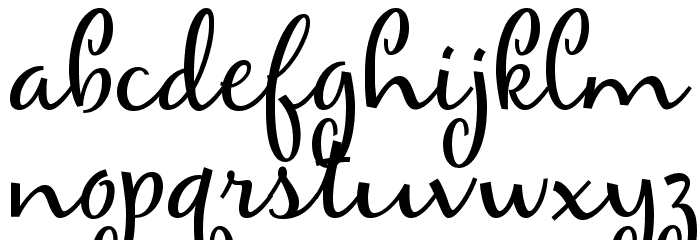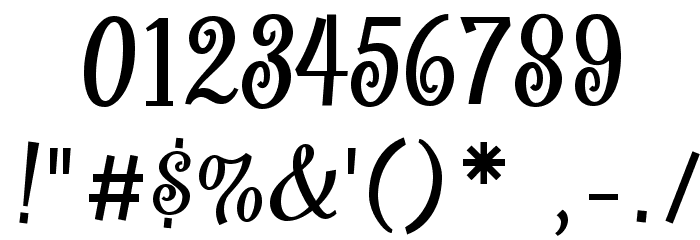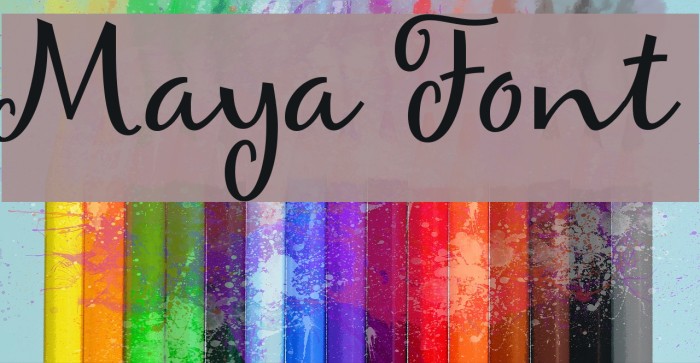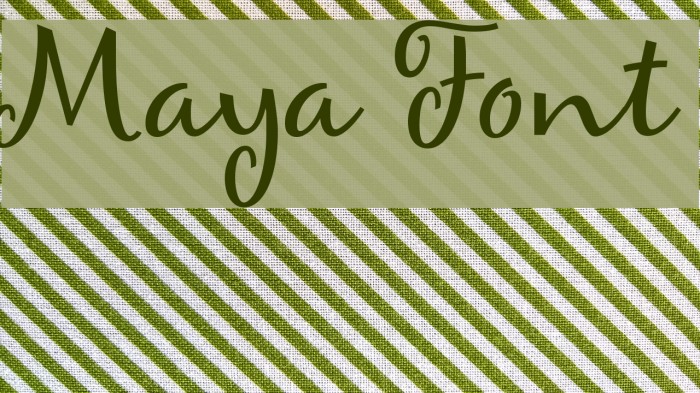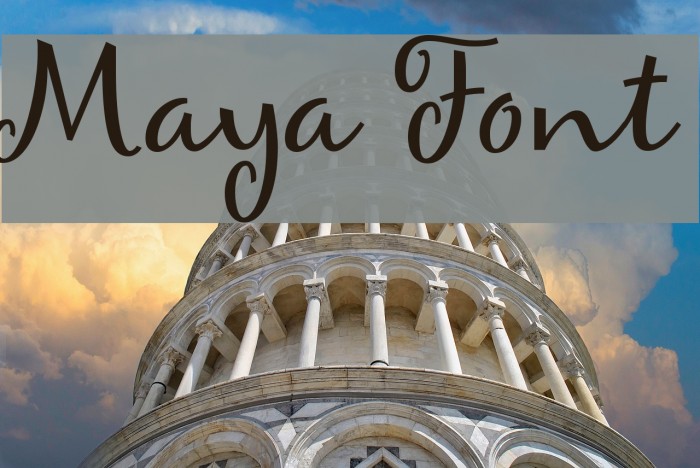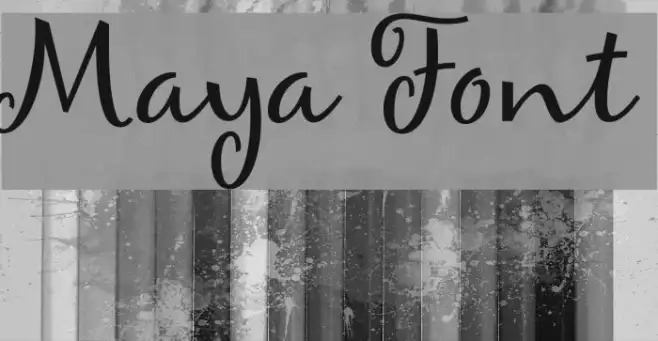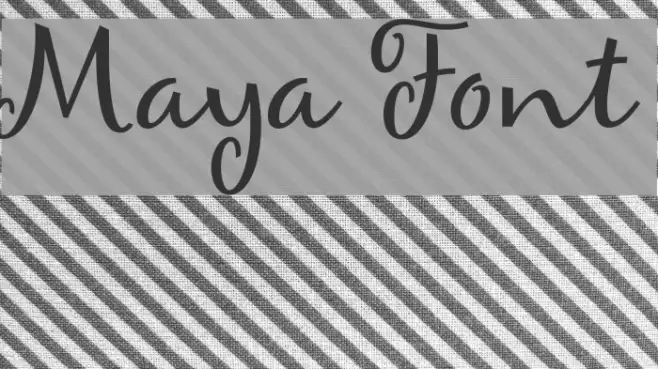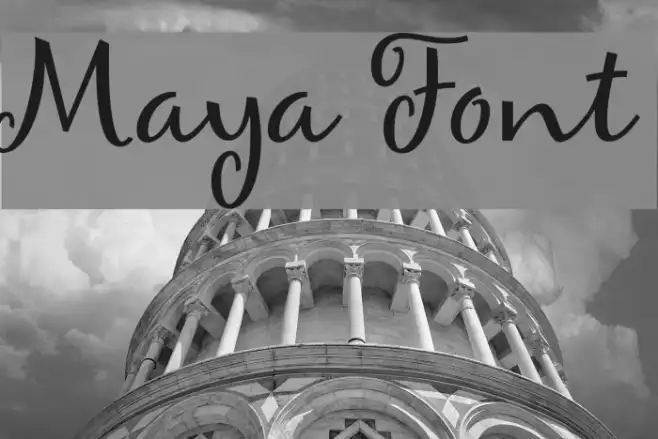
Maya Font
This font features an elegant and flowing script style with a playful yet sophisticated appearance. The uppercase letters are characterized by their ornate swirls and loops, giving them a decorative flair. The lowercase letters maintain a consistent cursive style, with smooth connections between characters. Numbers are bold and maintain the whimsical nature of the font, with distinctive curves and loops. The special characters complement the overall design, adding to the font's versatility. This font is ideal for projects that require a touch of elegance and creativity.
A decorative script font with elegant swirls and loops.
- Proposed Projects: Ideal for wedding invitations, greeting cards, branding, and logo design.
- Use Case: Logos, Invitations, Decorative text